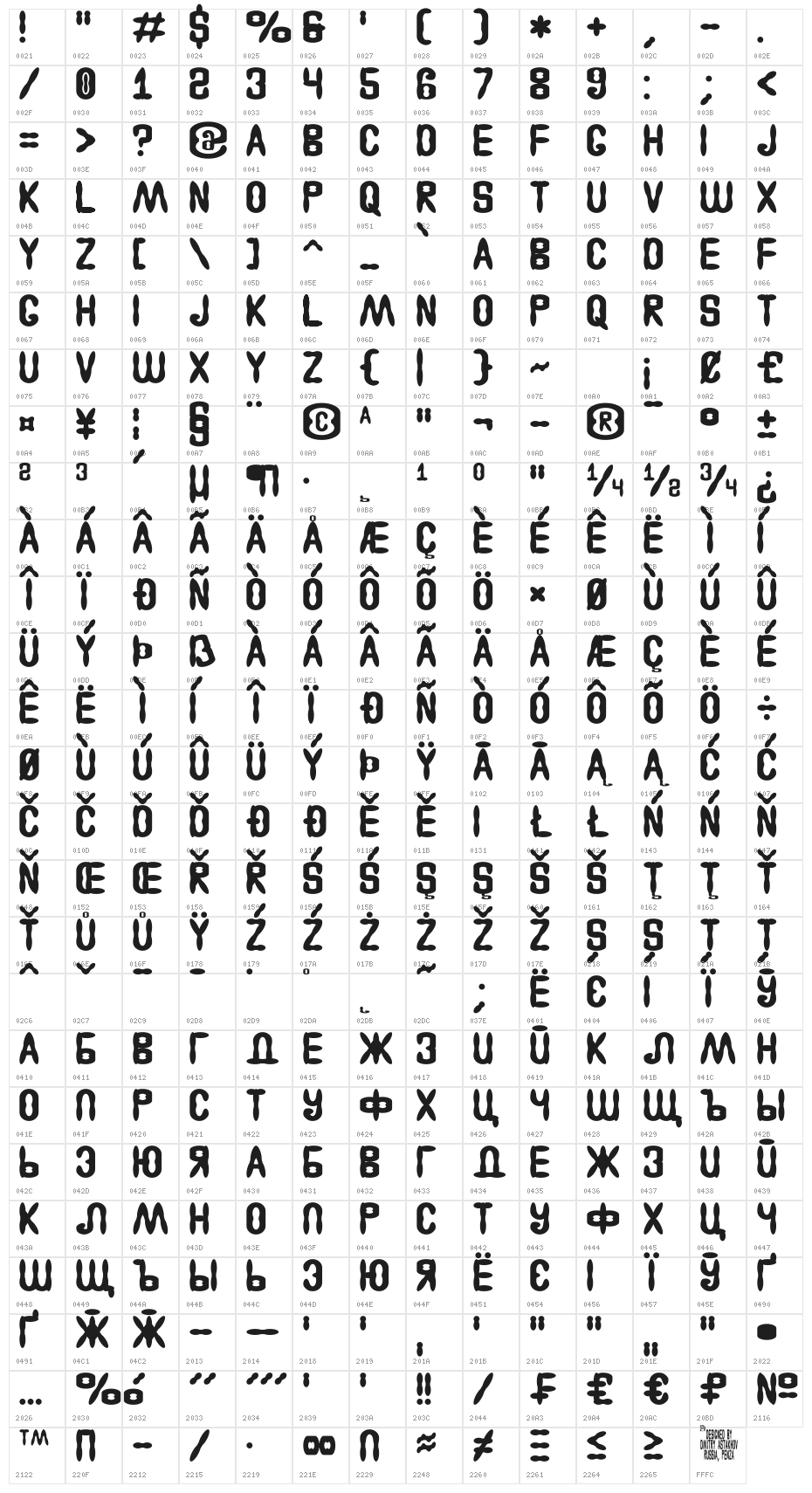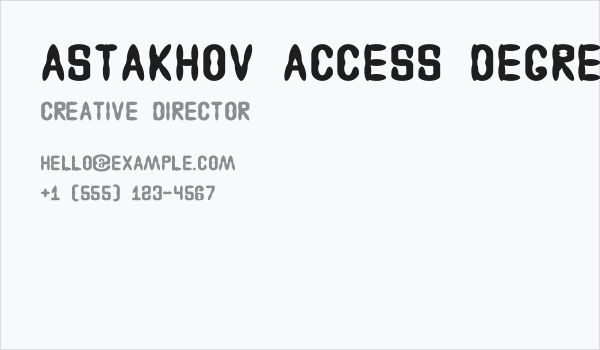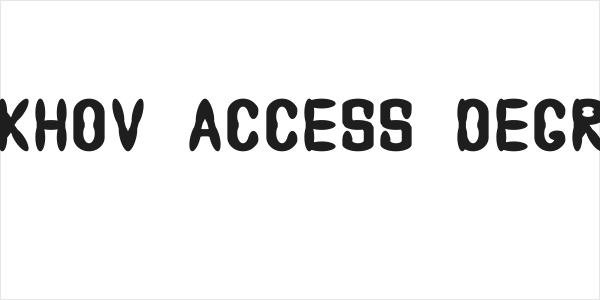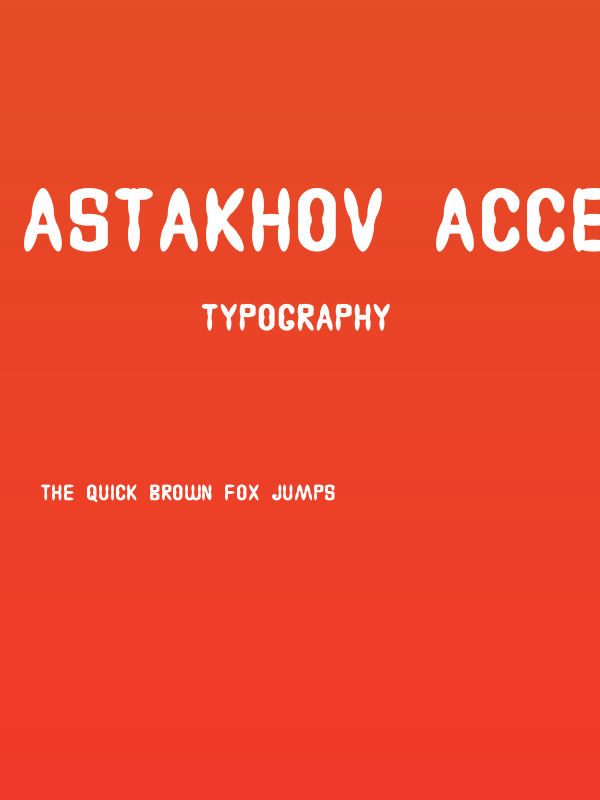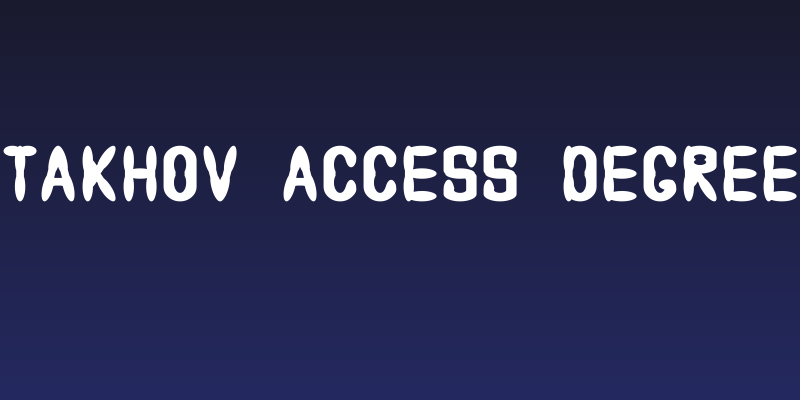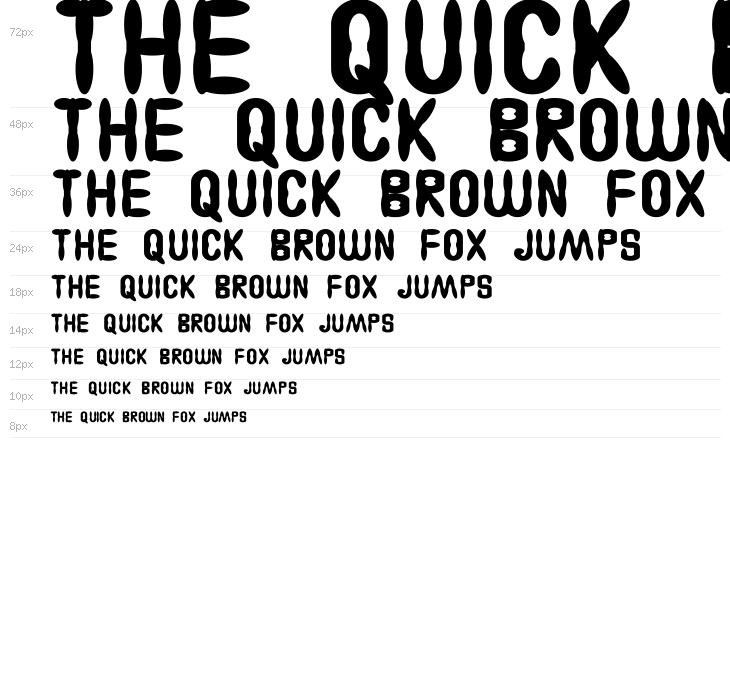
Astakhov Access Degree A Font
Astakhov Access Degree A Description
This font features a bold and playful design with a distinctly rounded and bubbly appearance. Each character is crafted with a thick, consistent stroke that gives it a strong presence. The letters have a slightly irregular shape, adding a whimsical and informal touch. The numbers and special characters maintain this playful style, ensuring a cohesive look across all elements. The font's unique style makes it stand out, ideal for projects that require a fun and engaging aesthetic.